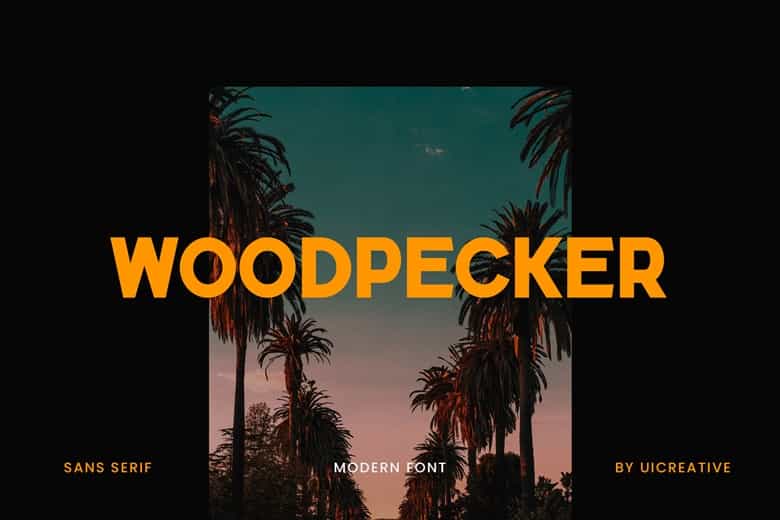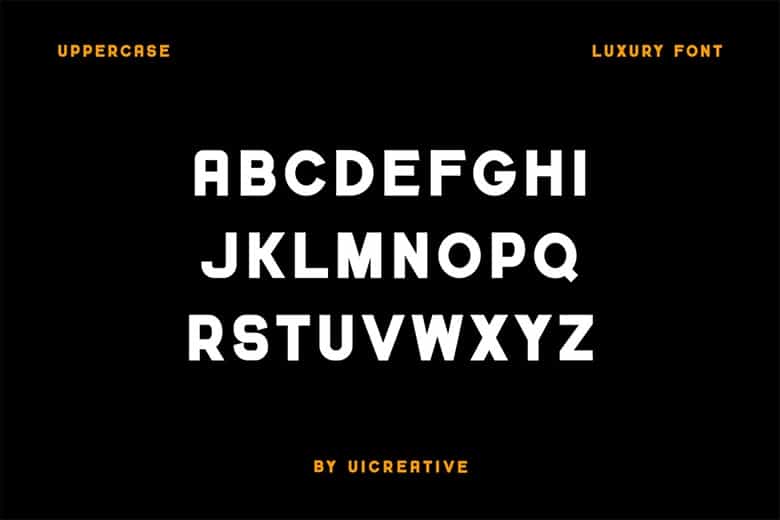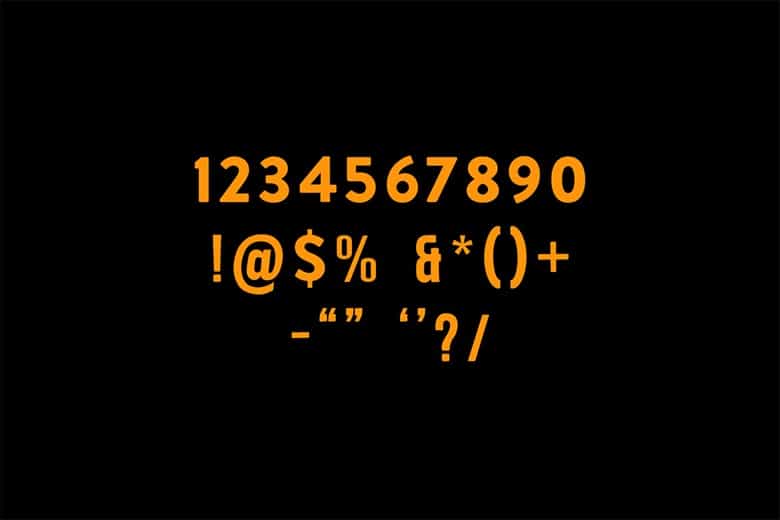
Wooppecker is a clean bold and elegant sans serif typeface. Absolutely fall in love with its stunning versatility and evoke dazzling visionary marriage invites, enhanced arts stationaries, charm posts and much more!